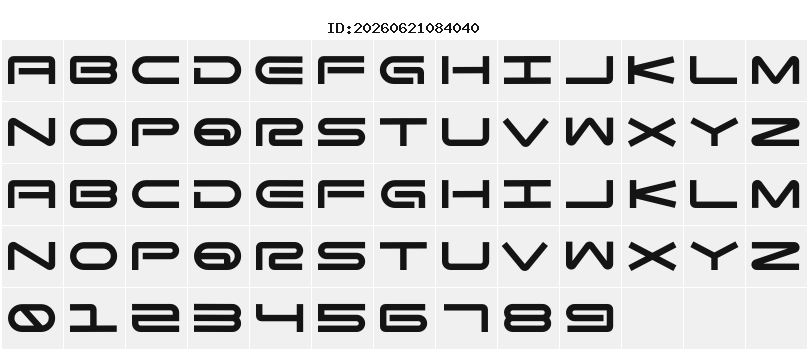
Zero G Wide Preview
• Font Name: Zero G Wide
• Full Font Name: Zero G Wide
• Designer: Aromal Ashok
About Zero G Wide.otf
Zero G Wide.otf is a modern, elegant sans-serif font designed for ultimate readability and visual harmony. Perfect for branding, headlines, web design, and print materials.